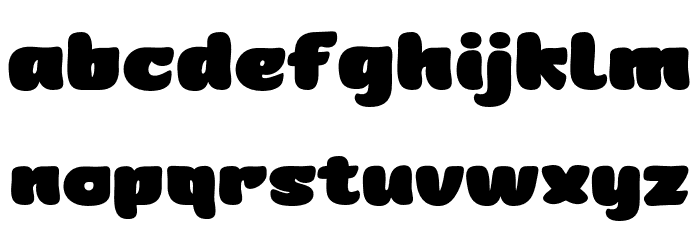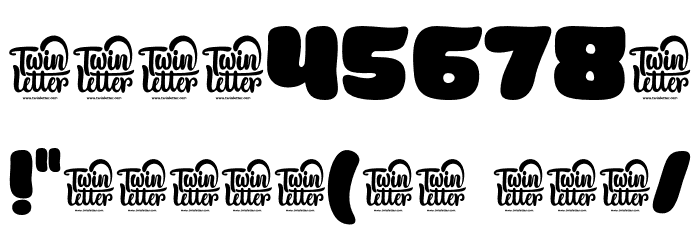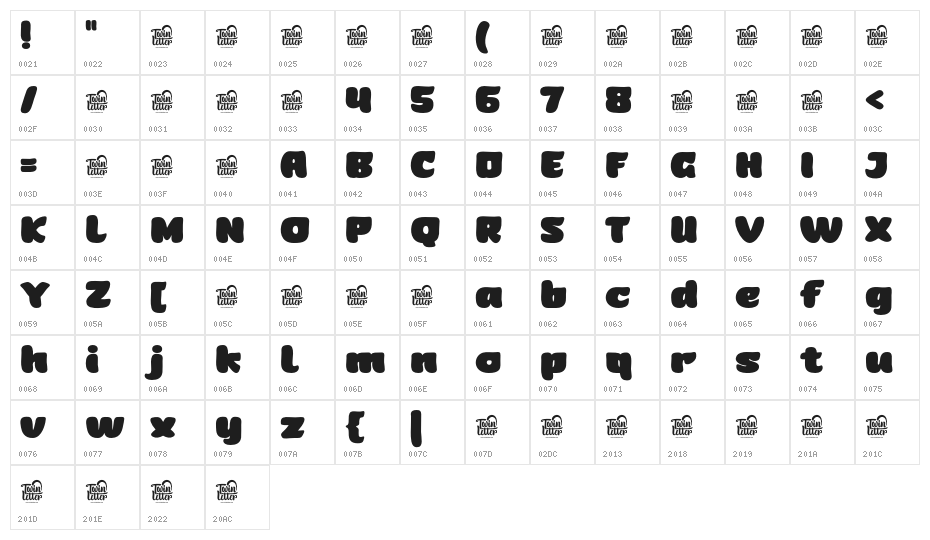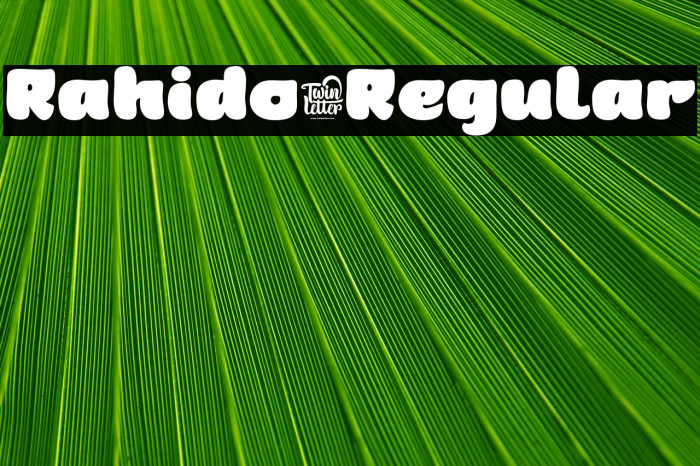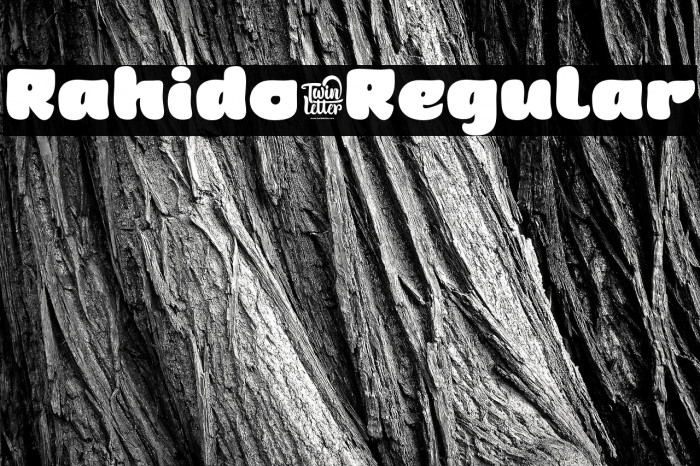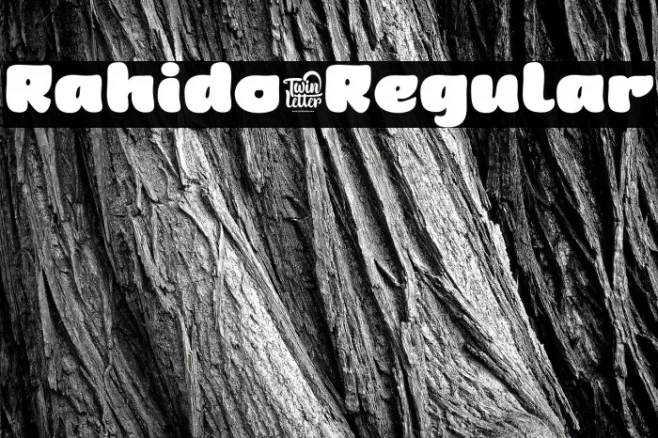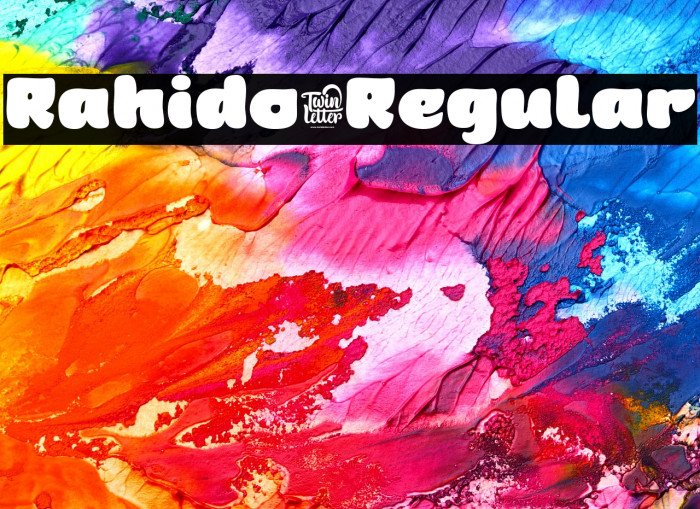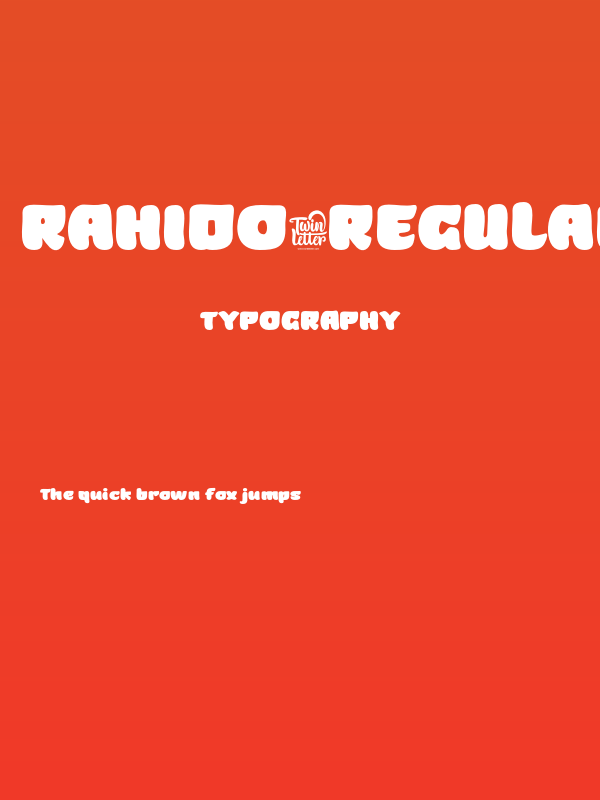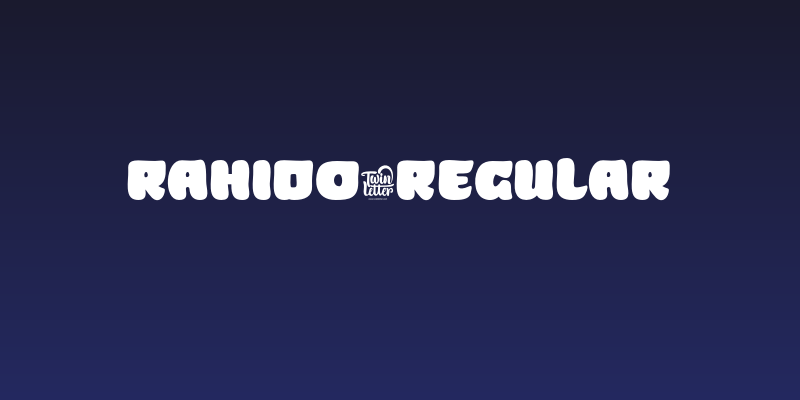
Rahido-Regular Font
This font features a bold and playful style with rounded edges and a chunky appearance. The characters are designed with a consistent thickness, giving it a cohesive look. The uppercase and lowercase letters maintain a uniformity that enhances readability while adding a touch of whimsy. The numbers are equally bold, ensuring they stand out in any design. Special characters are included, maintaining the same playful aesthetic. This font is ideal for projects that require a fun and engaging visual element.
A bold, playful font with rounded edges and a chunky appearance.
- Proposed Projects: Ideal for children's books, playful branding, posters, and social media graphics.
- Overall Style: Playful